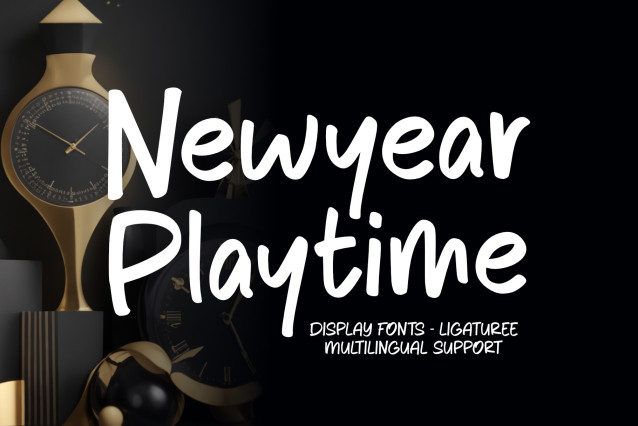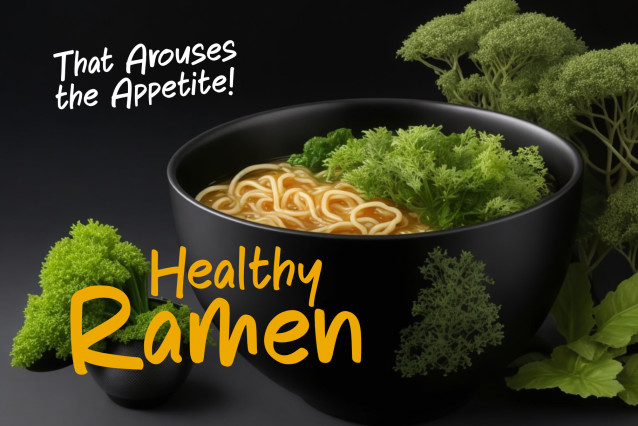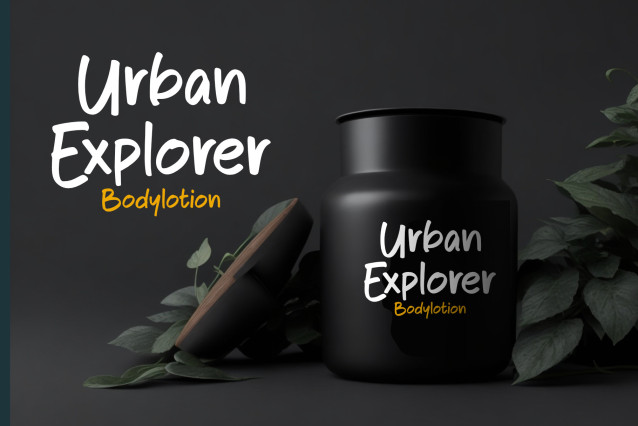
Newyear Playtime Font
Newyear Playtime Font a captivating display font that perfectly embodies the essence of fun and celebration, is the ideal choice for renowned brands seeking a distinctive touch. With its playful yet sophisticated design, this font effortlessly elevates any product or brand, adding a touch of joy and modernity. Make a lasting impression with Newyear Playtime and let your brand shine with a vibrant and stylish identity